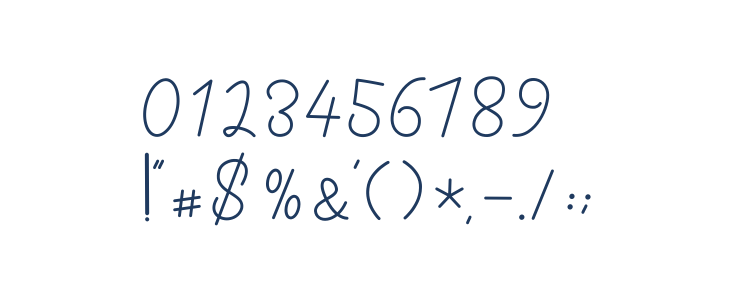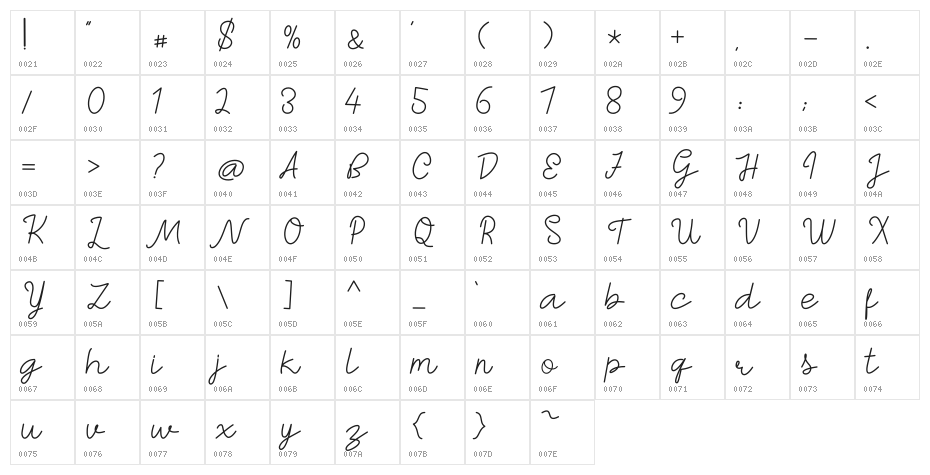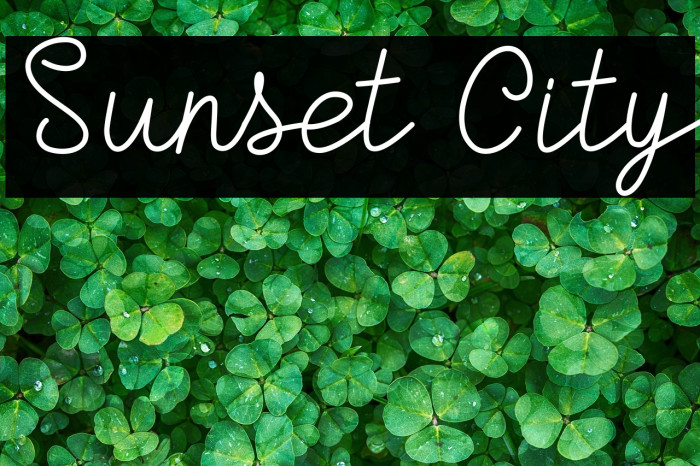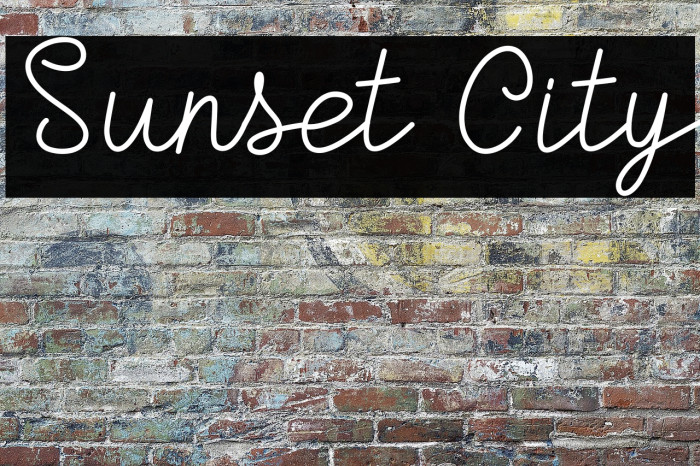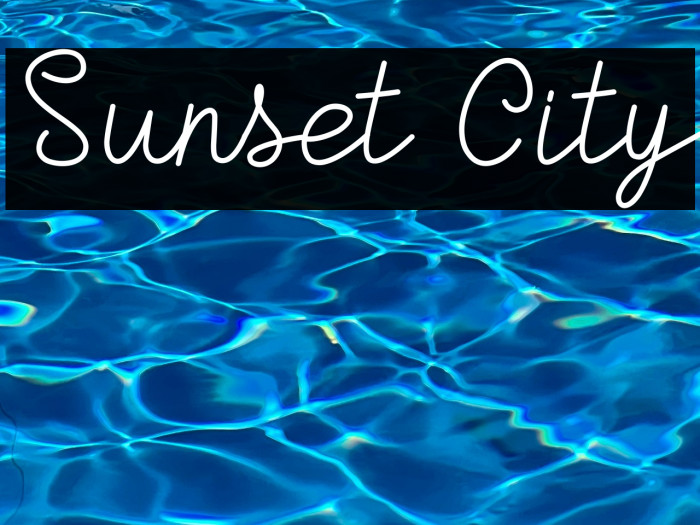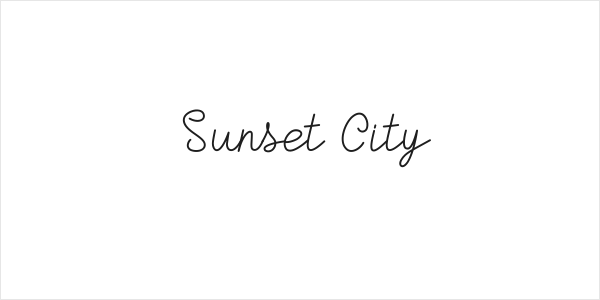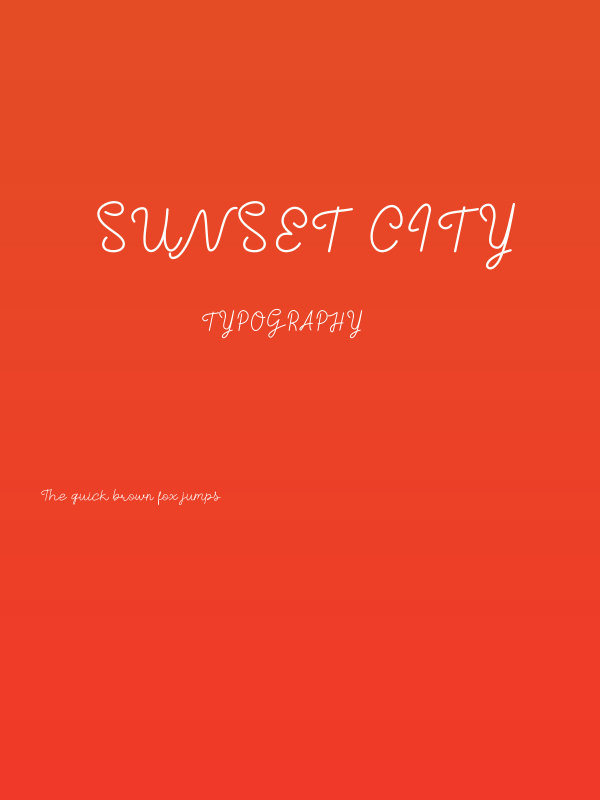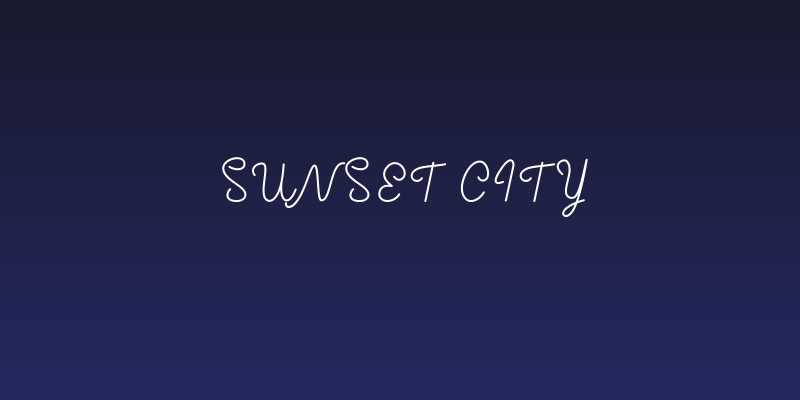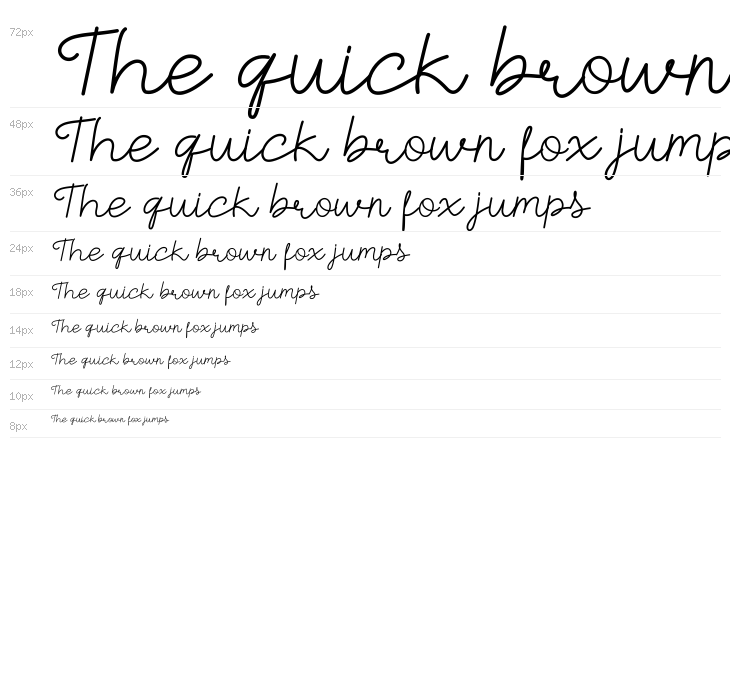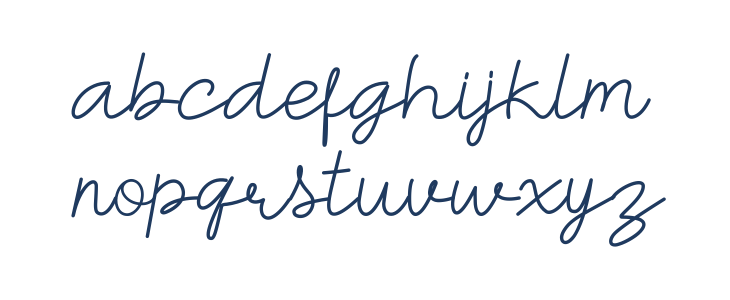
Sunset City Font
Sunset City Description
This font features a playful and elegant script style with smooth, flowing lines that mimic natural handwriting. The characters are connected, giving it a cohesive and fluid appearance. The uppercase letters are slightly more ornate, while the lowercase letters maintain a consistent rhythm and balance. The numerals and special characters are designed to complement the alphabet, maintaining the same handwritten aesthetic. This font exudes a casual yet sophisticated charm, making it ideal for projects that require a personal touch.
| Overall Style | Casual, Elegant |
| Proposed Projects | Ideal for wedding invitations, greeting cards, personal branding, and social media graphics. |